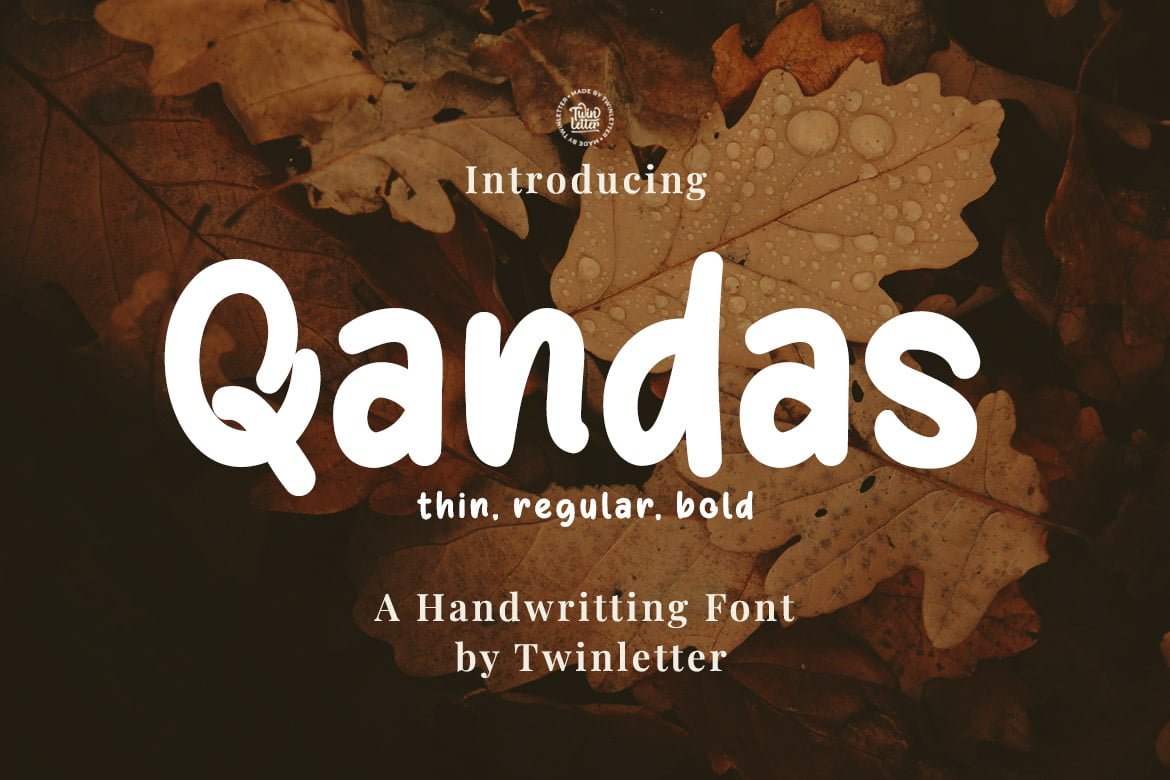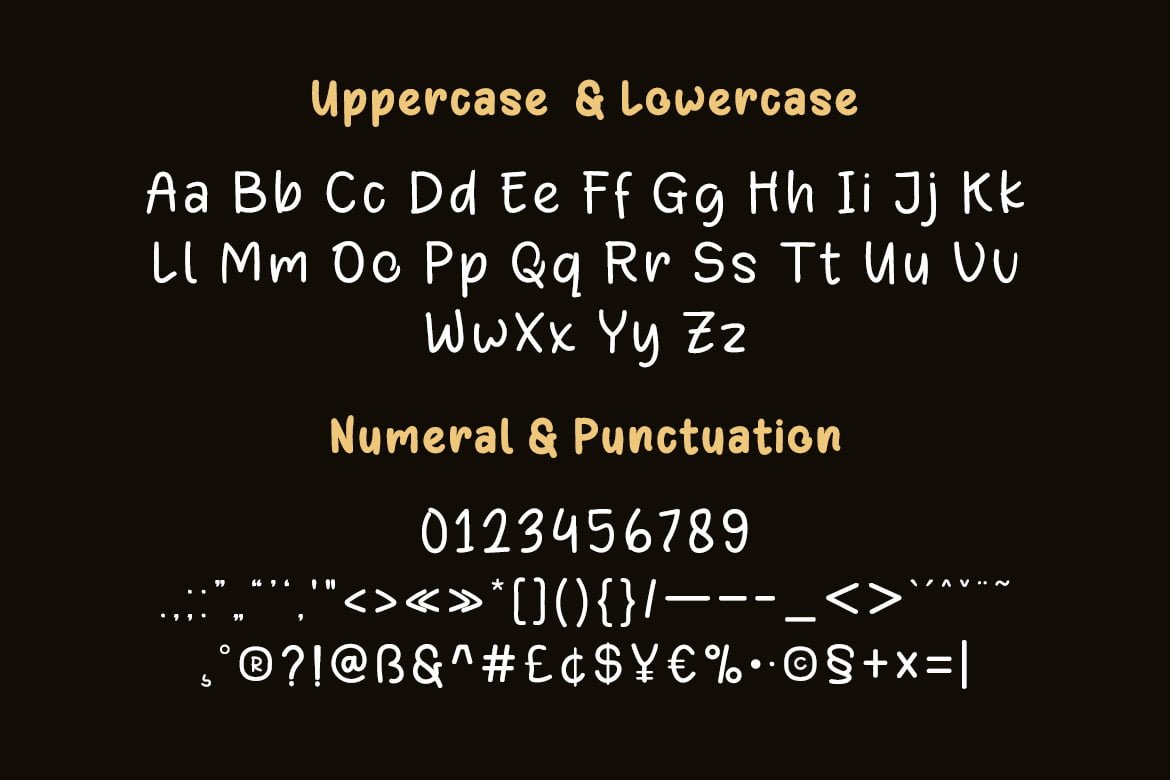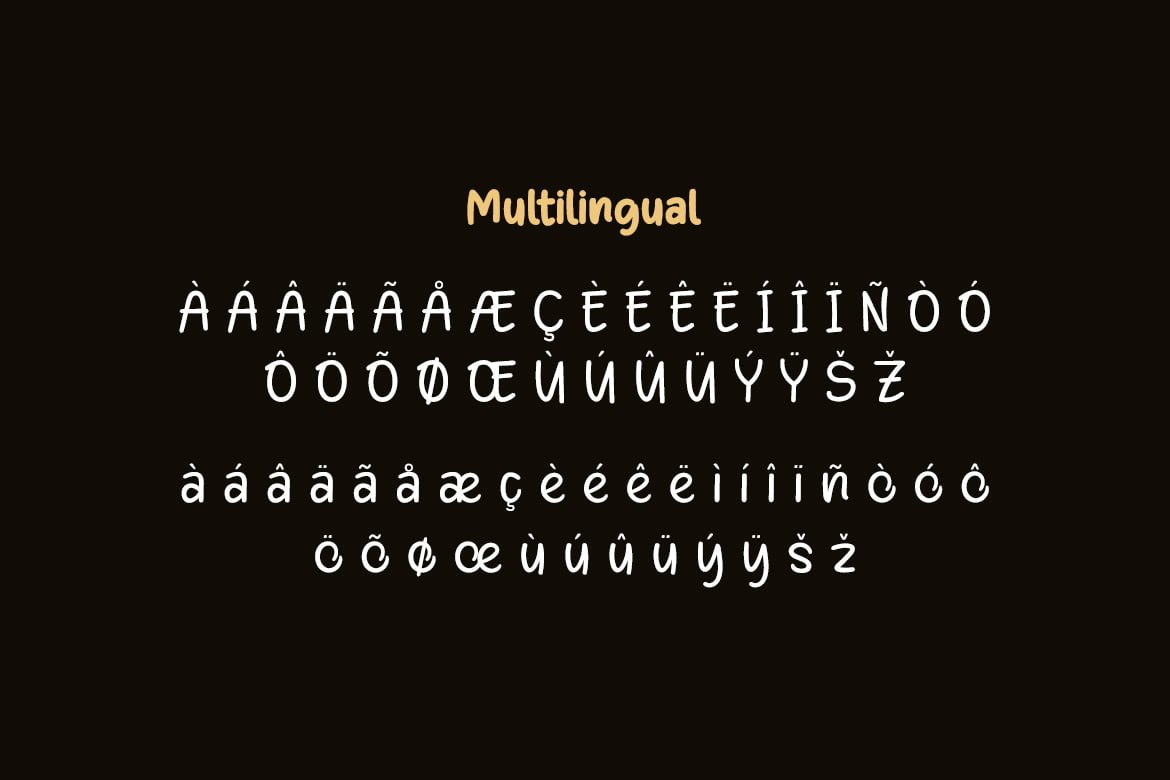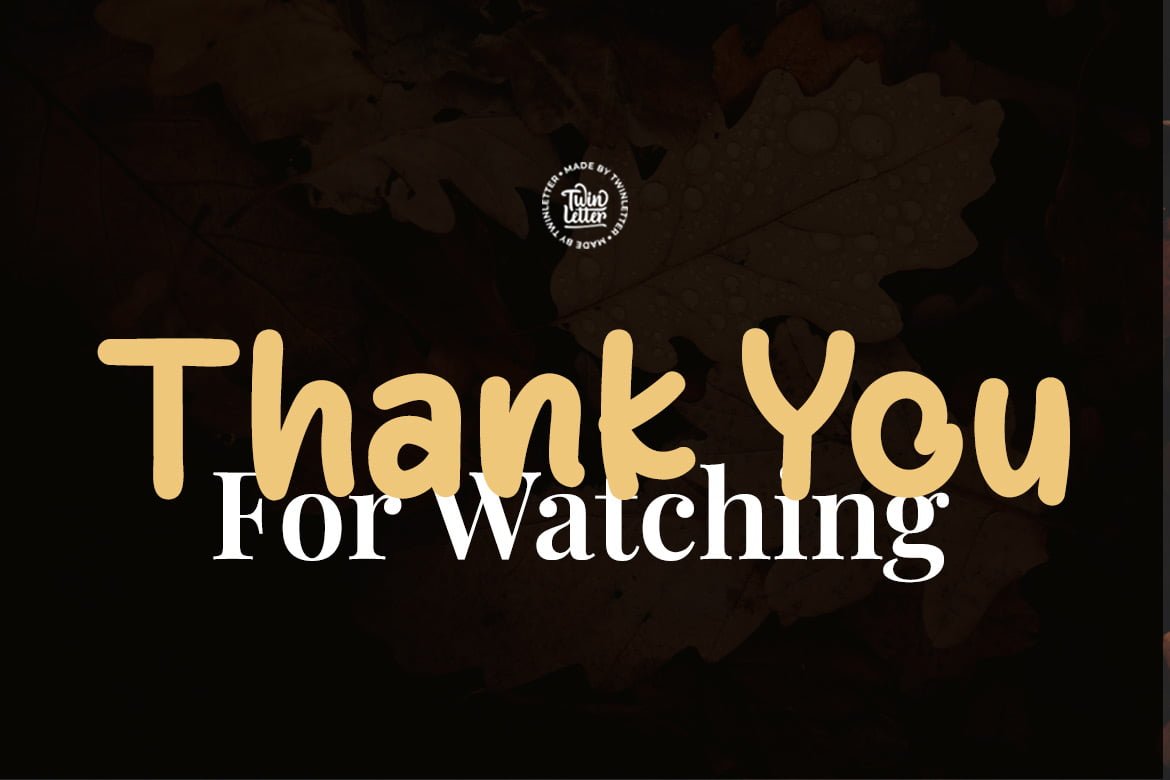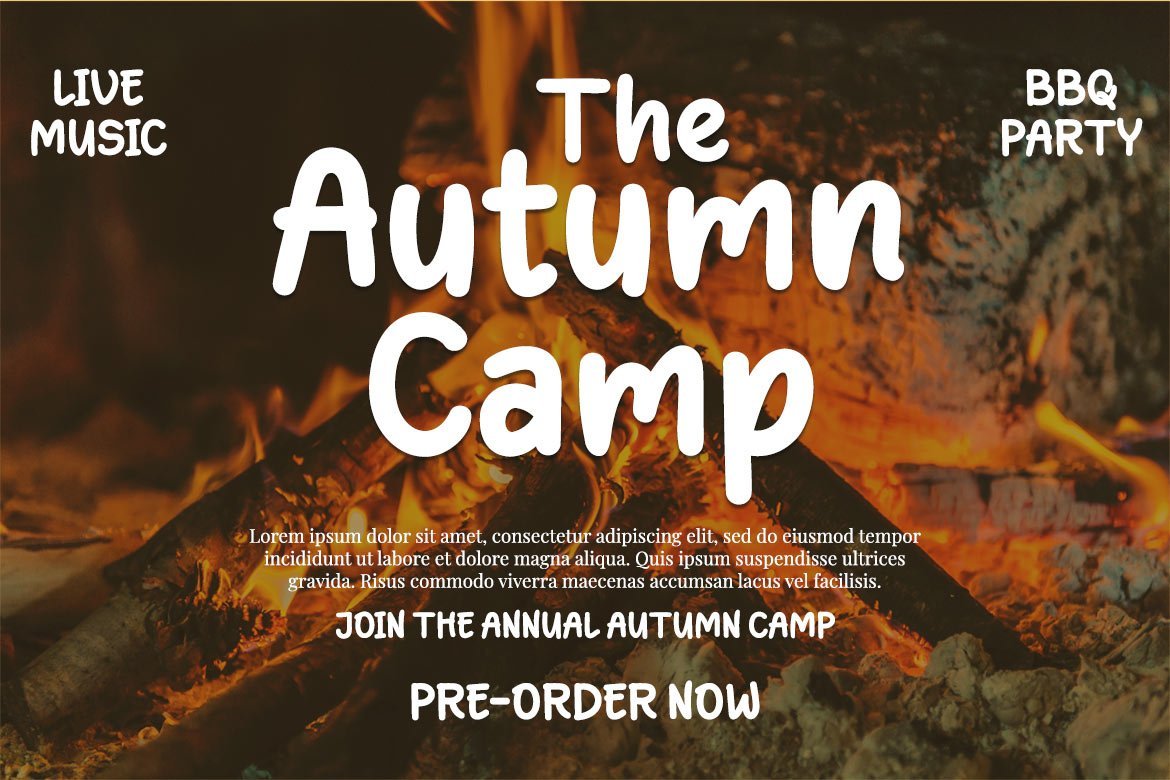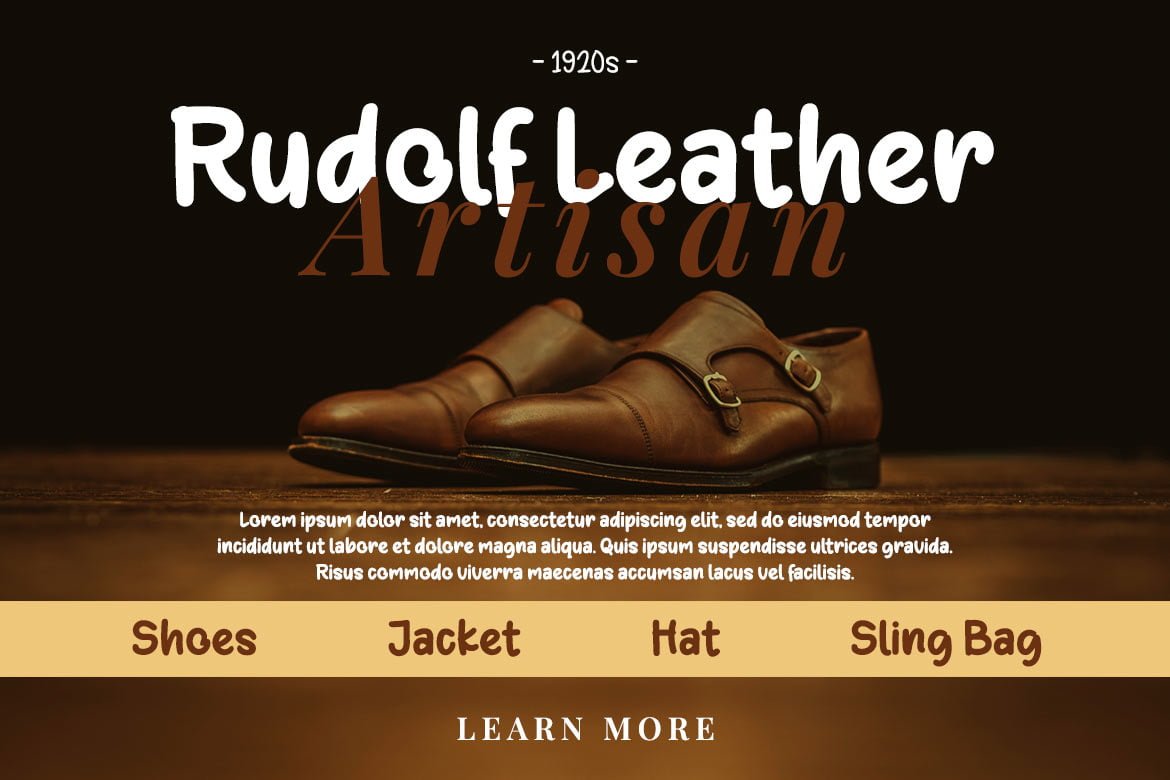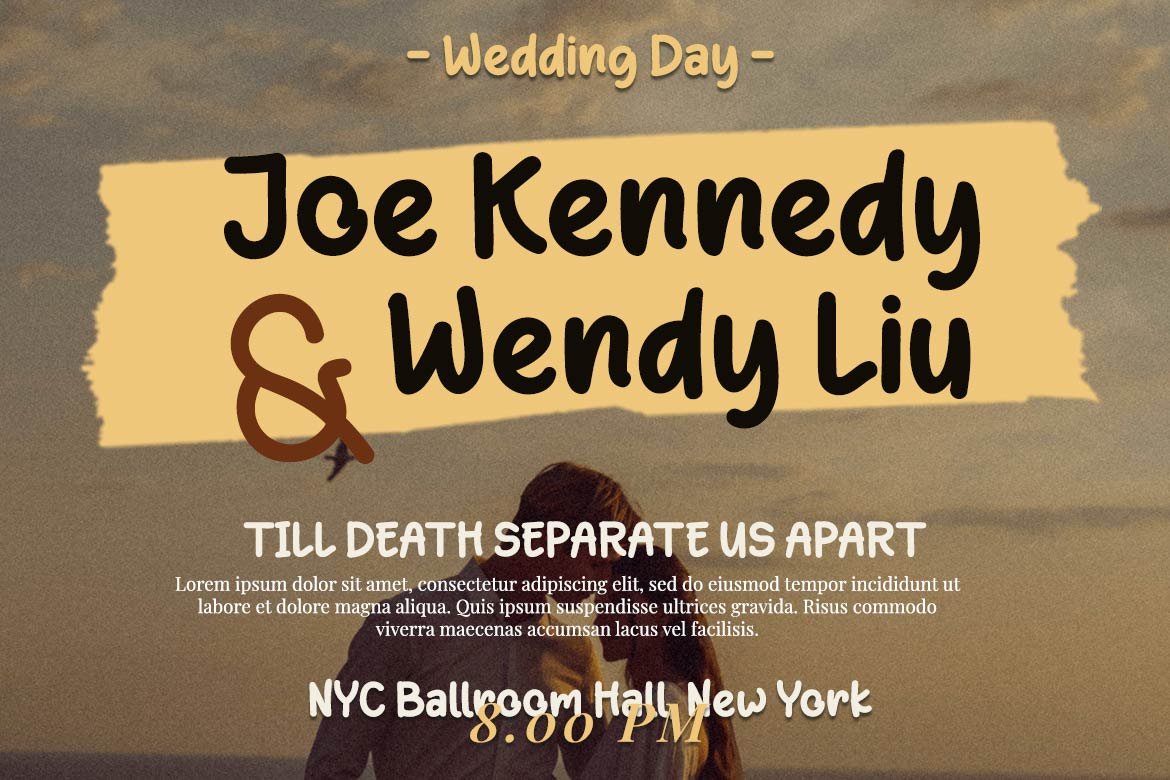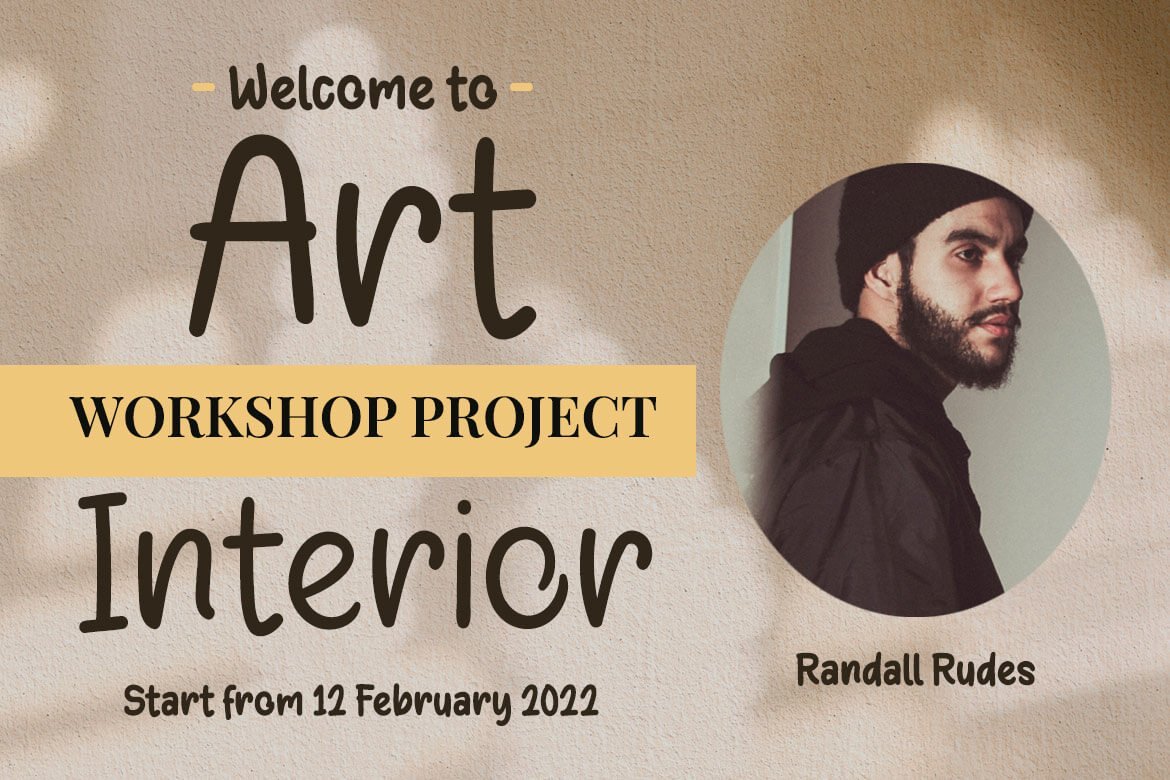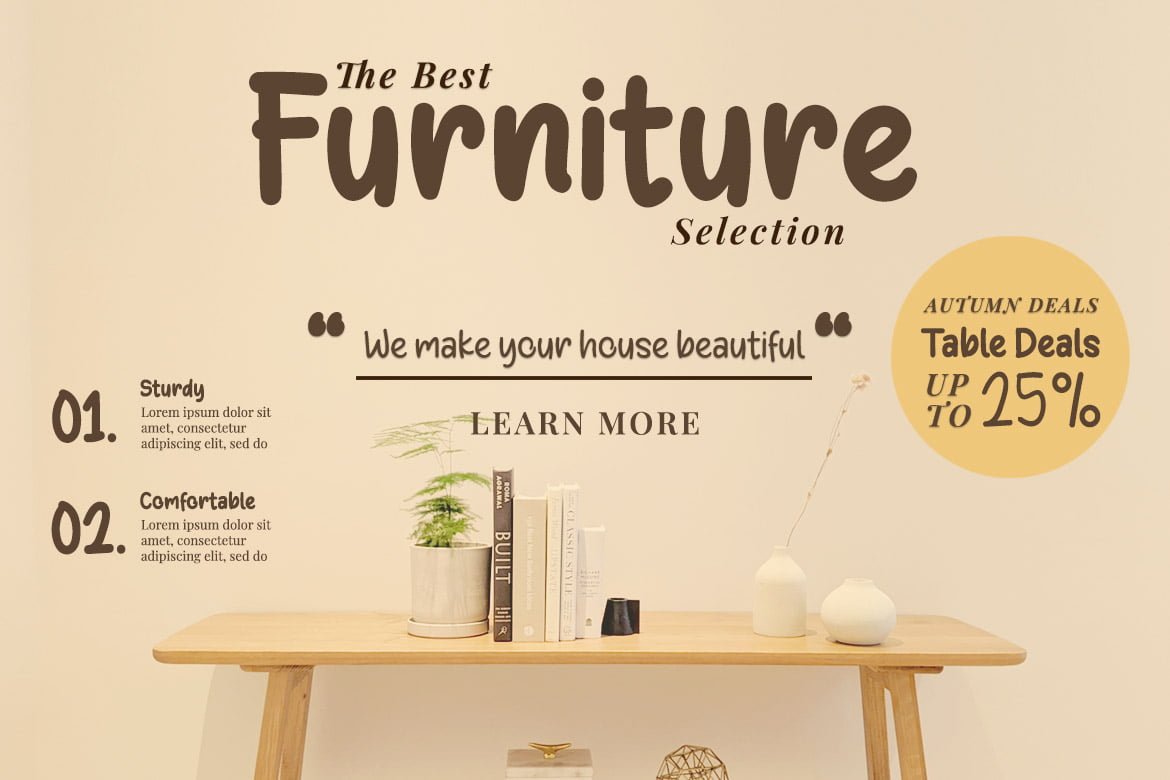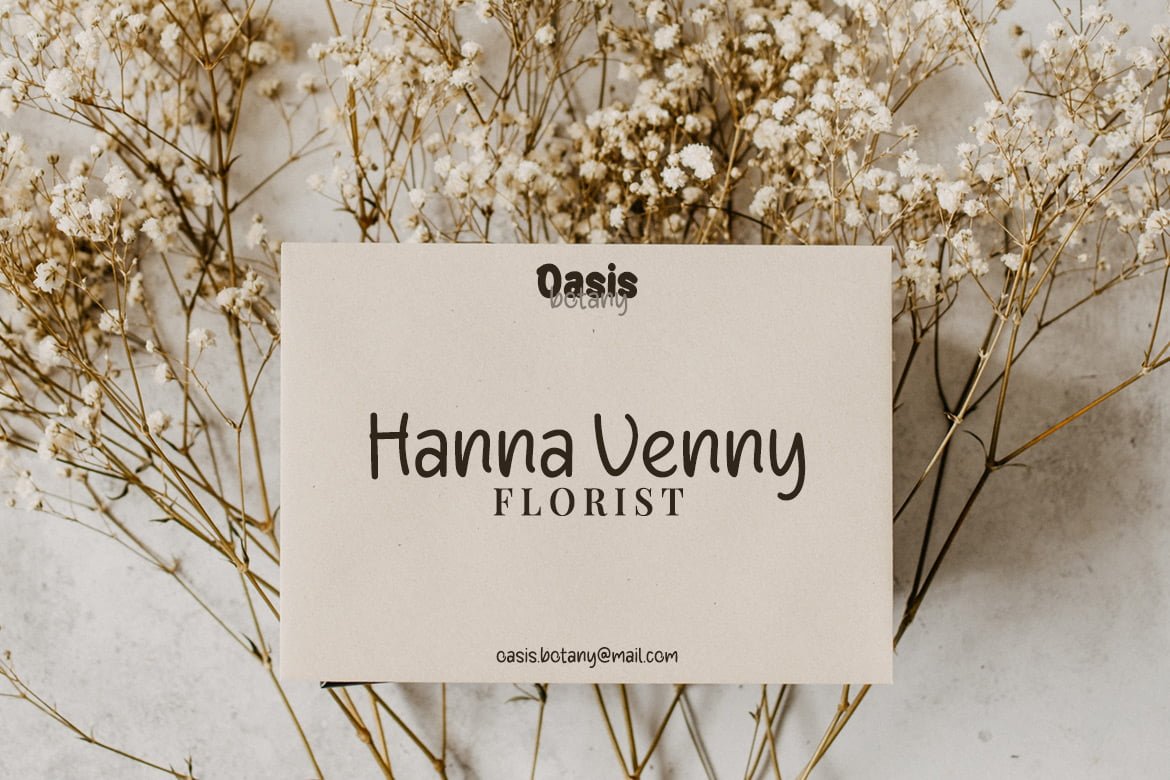
Qandas
Qandas is a handwritten font that has been polished to seem neat and professional, but it is also versatile in its application, making it suitable for both official and non-formal applications. If you utilize this typeface on all of your projects, they will stand out.
This font is designed with a natural touch of handwriting which is refined to create a portion and composition that suits your needs. So this font is suitable for craft, children’s writing, adventure posters, food banner titles, wedding invitations, product packaging logos, quotes, social media page covers, furniture banner headlines, book covers, and much more.
• Fonts include multilingual support for; Afrikaans, Albanian, Croatian, Czech, Danish, Dutch, English, Estonian, Finnish, French, German, Hungarian, Italian, Norwegian, Polish, Portuguese, Slovak, Slovenian, Spanish, Swedish